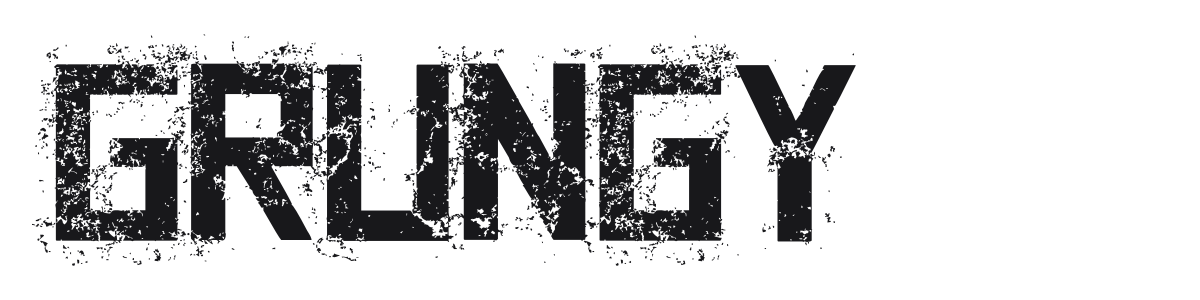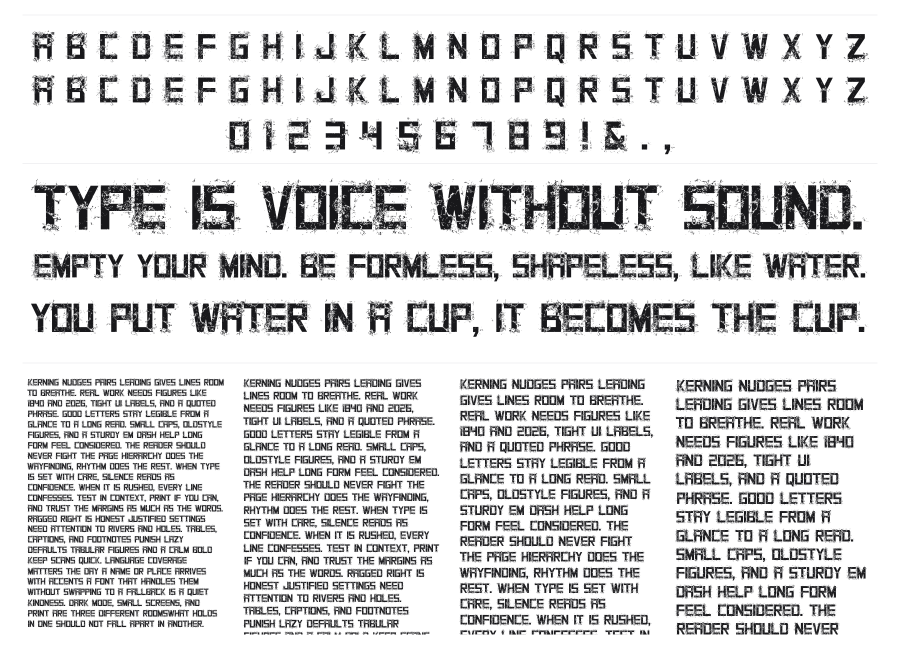
Grungy
Grungy is a heavy, distressed sans-serif built on a squared-off geometric skeleton and blasted with extreme wear texture. Every character is fragmented with ink chips, spatter, and surface erosion, giving it an authentically rough, street-worn look. It hits hard at large sizes, especially on posters, album covers, and anything that needs a raw, aggressive edge.